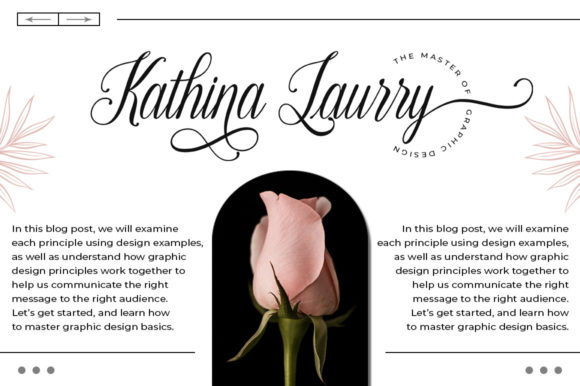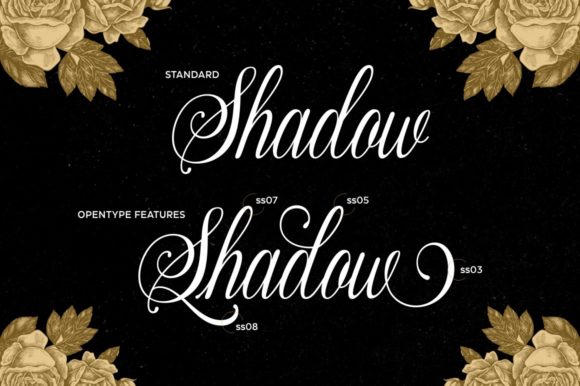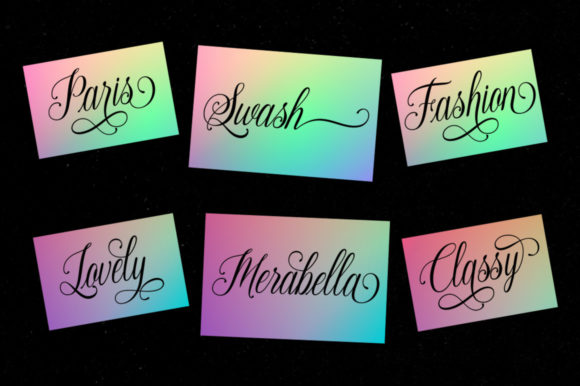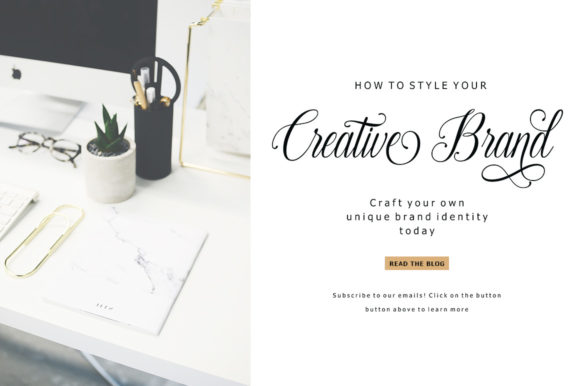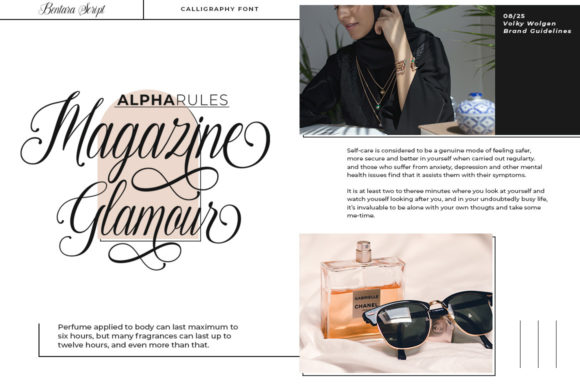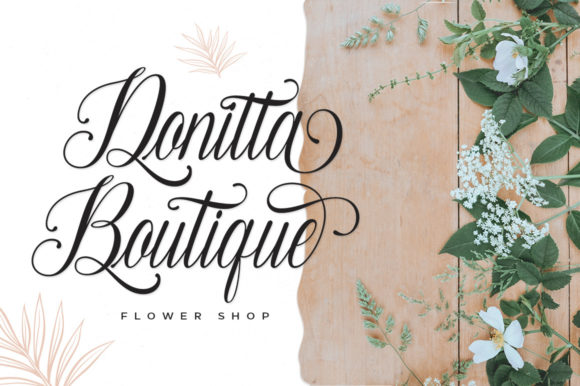
Bentara Script Font: Elevate Your Designs with Elegance and Sophistication
In the world of typography, a well-crafted script font can make all the difference in creating visually stunning designs. Bentara Script Font is a stylish and refined script font that has been making waves in the design community. With its classy, elegant, and modern look, Bentara Script is the perfect choice for designers and crafters looking to add a touch of sophistication to their work.
What Makes Bentara Script Font Stand Out?
Bentara Script Font boasts a unique and beautiful design that sets it apart from other script fonts. Its elegant and refined strokes make it perfect for a variety of design applications, including logos, branding, invitations, stationery, wedding designs, social media posts, and more. Whether you’re a professional designer or a crafty DIY enthusiast, Bentara Script Font is sure to impress.
Key Features of Bentara Script Font
- Classy and Elegant Design: Bentara Script Font features a sophisticated design that exudes elegance and refinement.
- Modern Look and Feel: With its clean lines and beautiful strokes, Bentara Script Font has a modern look and feel that’s perfect for contemporary designs.
- PUA Encoded: Bentara Script Font is PUA (Private Use Area) encoded, which means you can access all glyphs and swashes with ease.
- Versatile and Flexible: Bentara Script Font can be used for a wide range of design applications, from logos and branding to invitations and social media posts.
Benefits of Using Bentara Script Font
So, why choose Bentara Script Font for your next design project? Here are just a few benefits of using this beautiful script font:
- Instantly Elevate Your Designs: With Bentara Script Font, you can instantly add a touch of elegance and sophistication to your designs.
- Save Time and Effort: Bentara Script Font is easy to use and comes with a range of glyphs and swashes, saving you time and effort in the design process.
- Stand Out from the Crowd: With its unique and beautiful design, Bentara Script Font can help you stand out from the crowd and create designs that truly shine.
How to Use Bentara Script Font
Using Bentara Script Font is easy! Here are a few tips to get you started:
- Choose Your Design Application: Decide how you want to use Bentara Script Font, whether it’s for a logo, invitation, or social media post.
- Experiment with Glyphs and Swashes: Use the PUA encoded glyphs and swashes to add variety and interest to your design.
- Have Fun and Get Creative!: The most important thing is to have fun and get creative with Bentara Script Font!